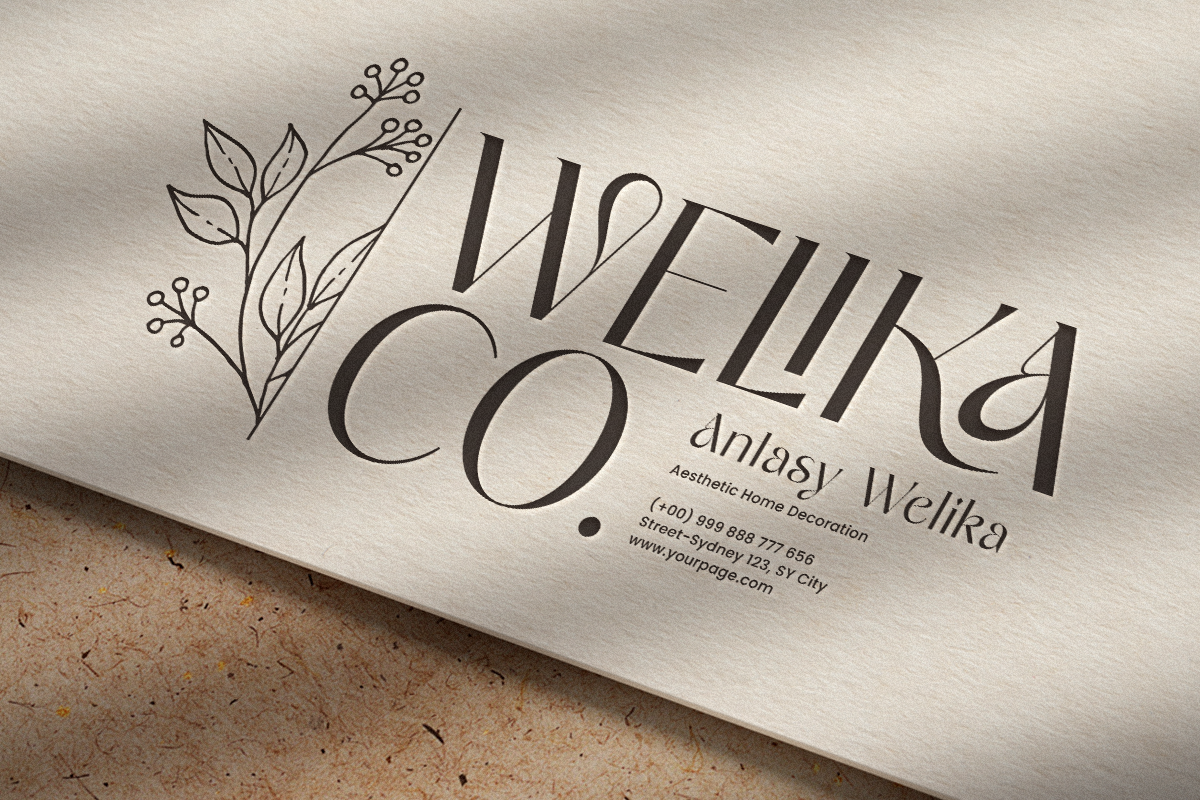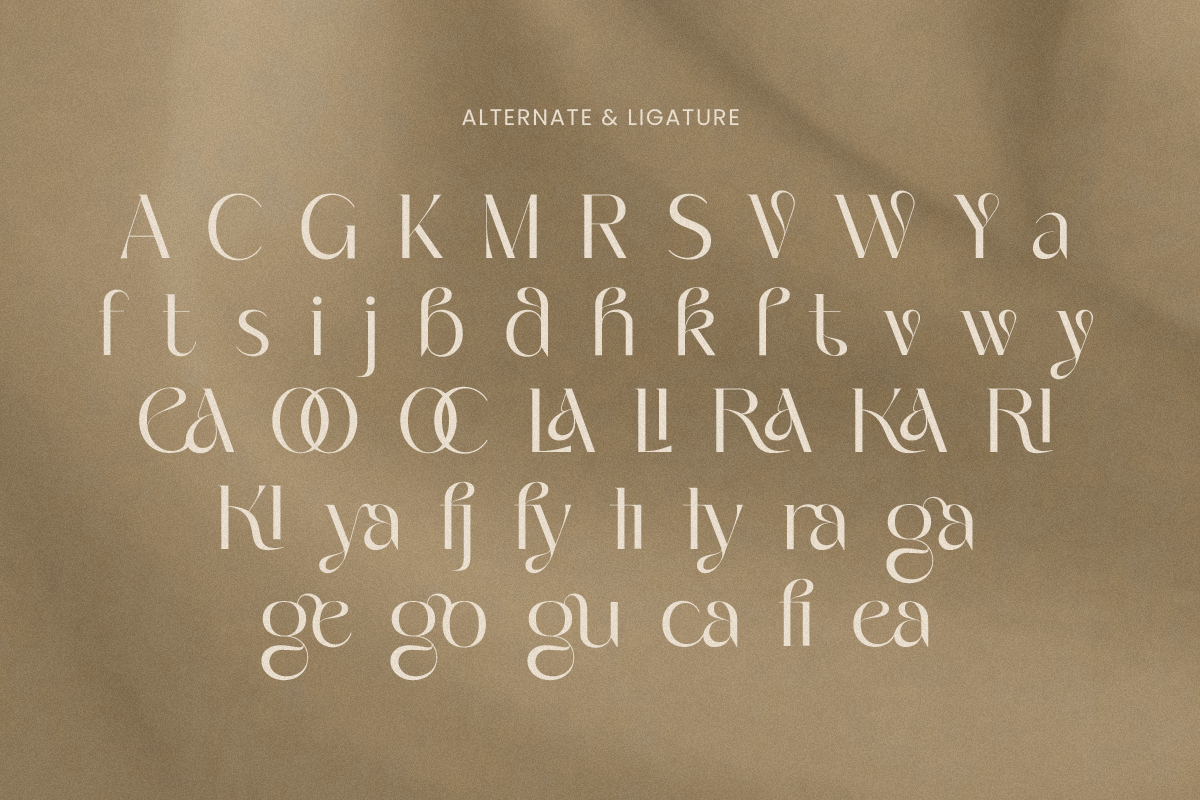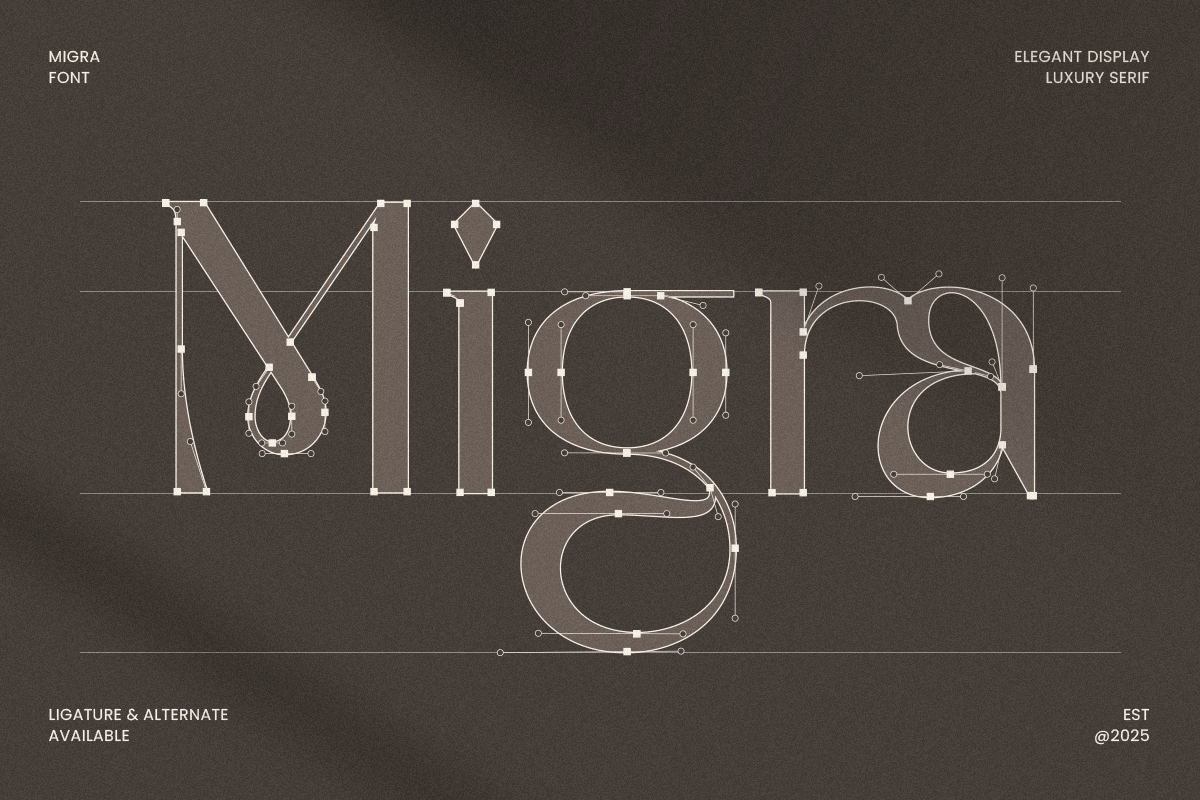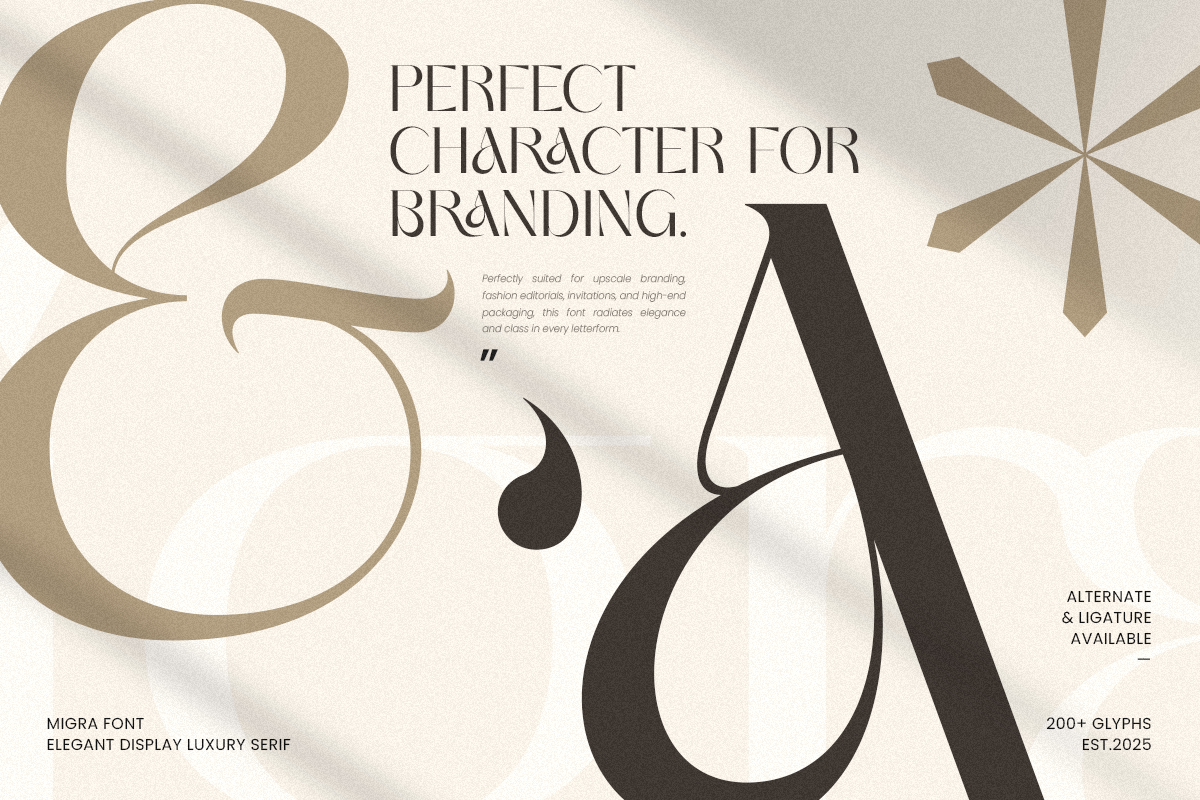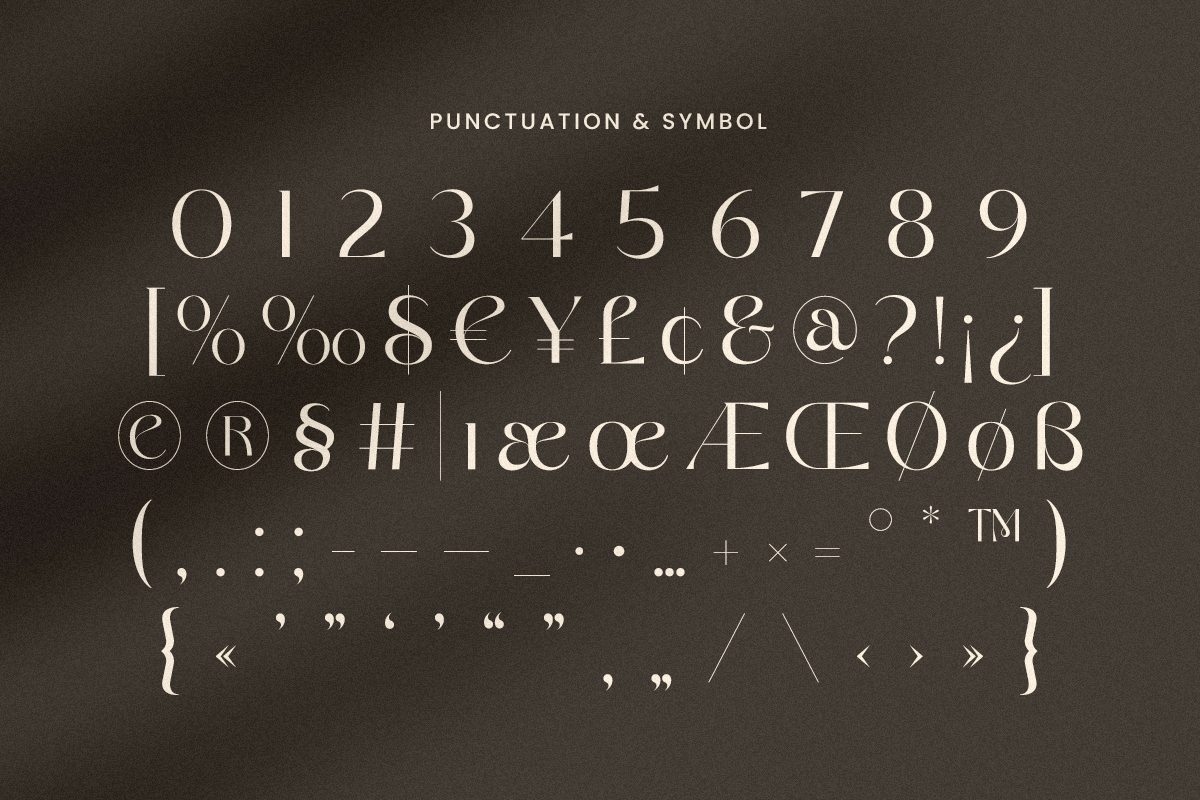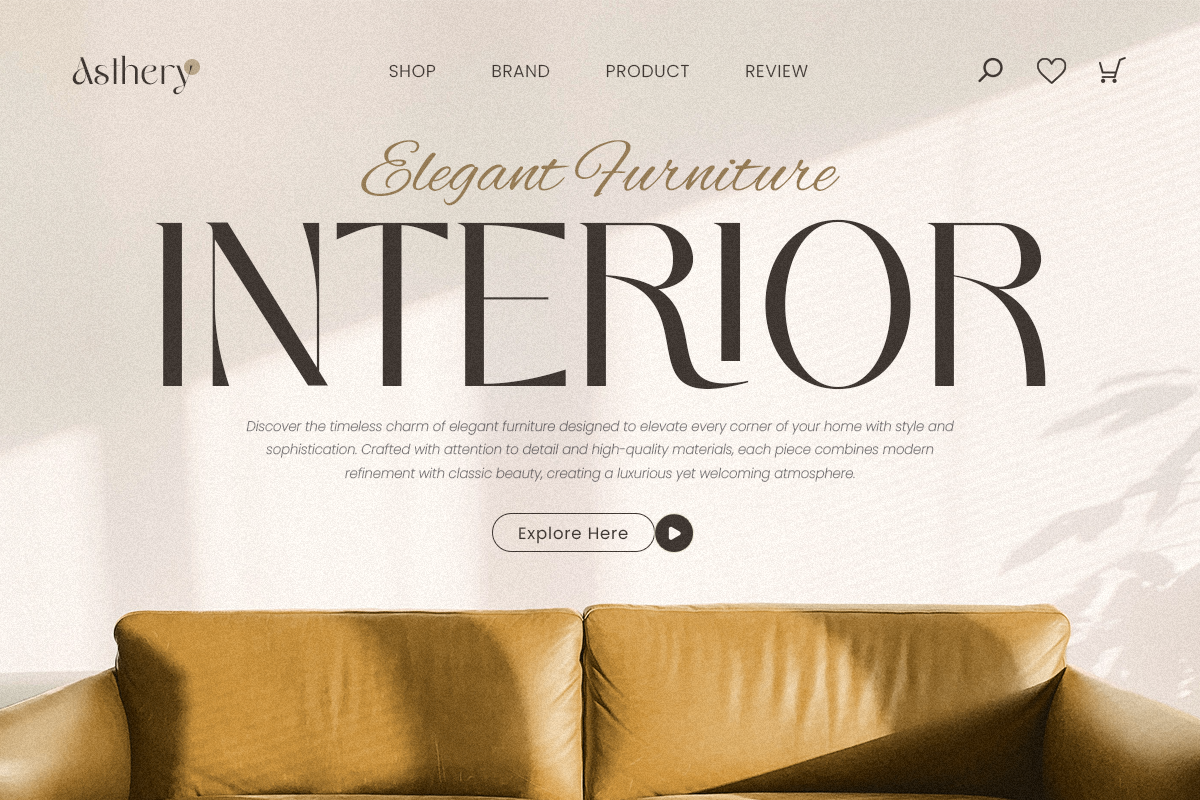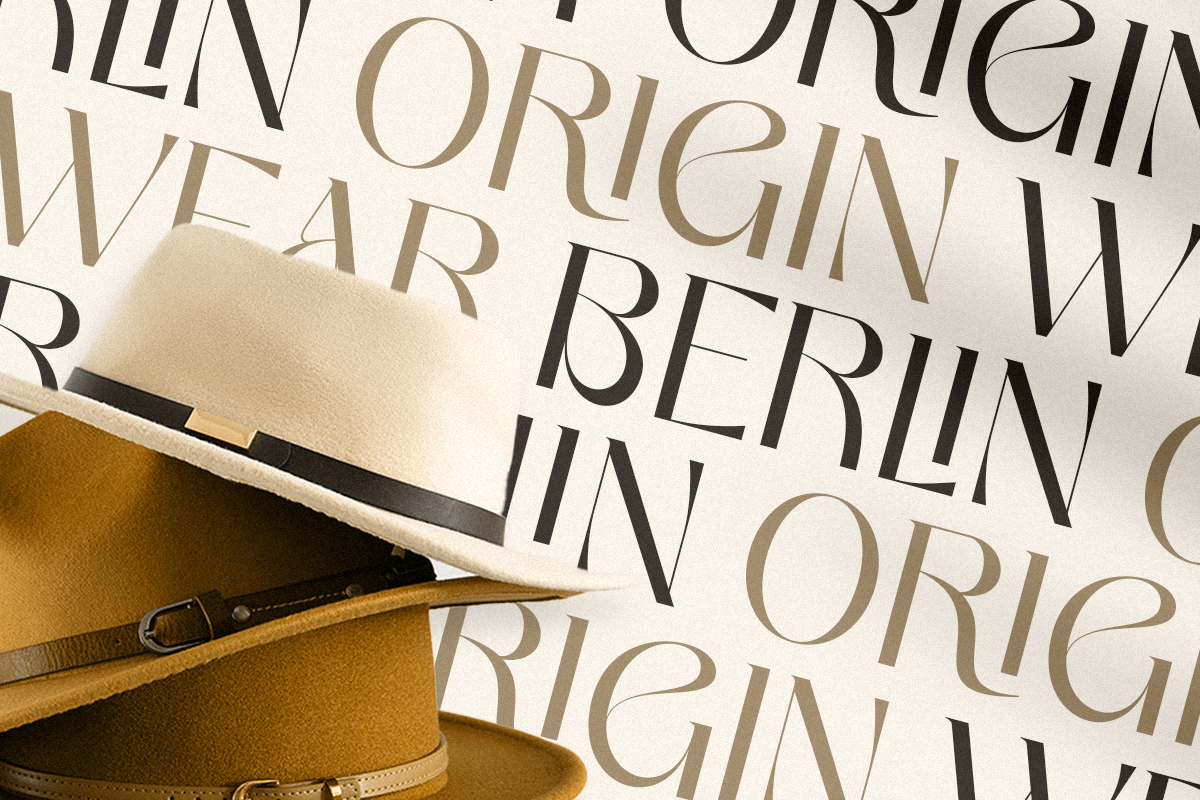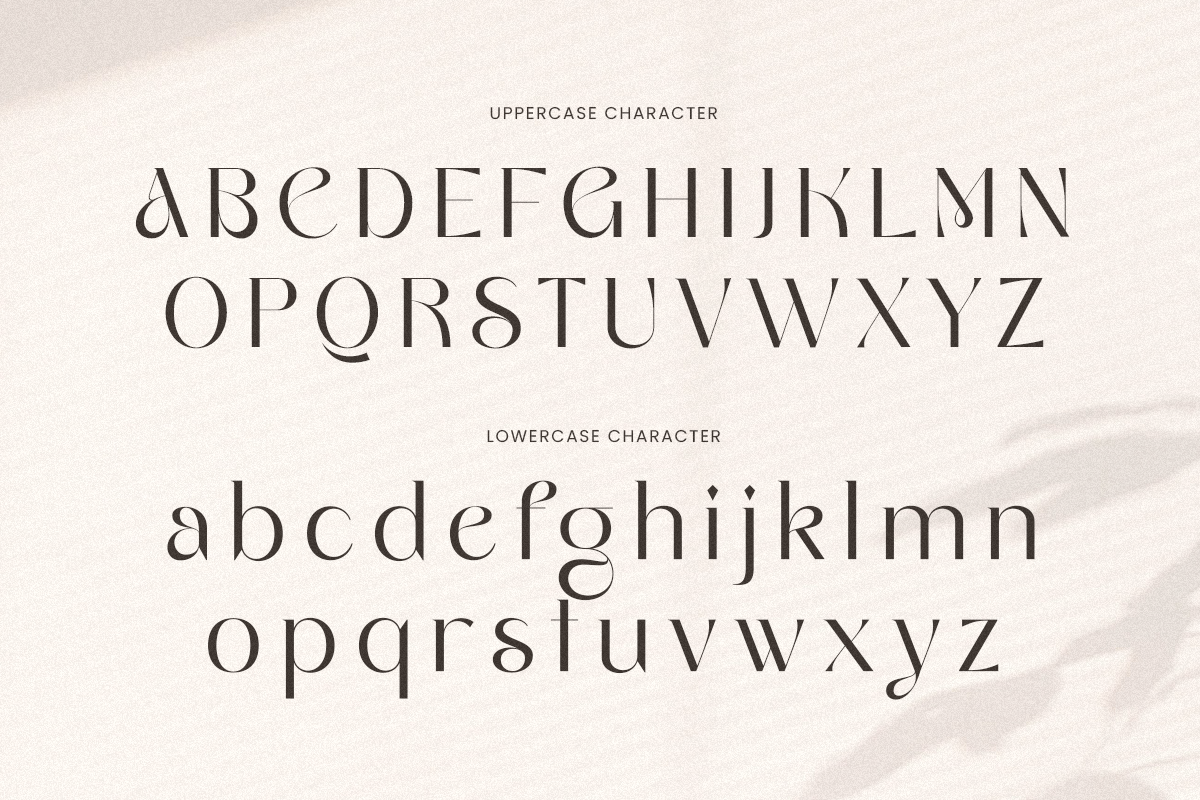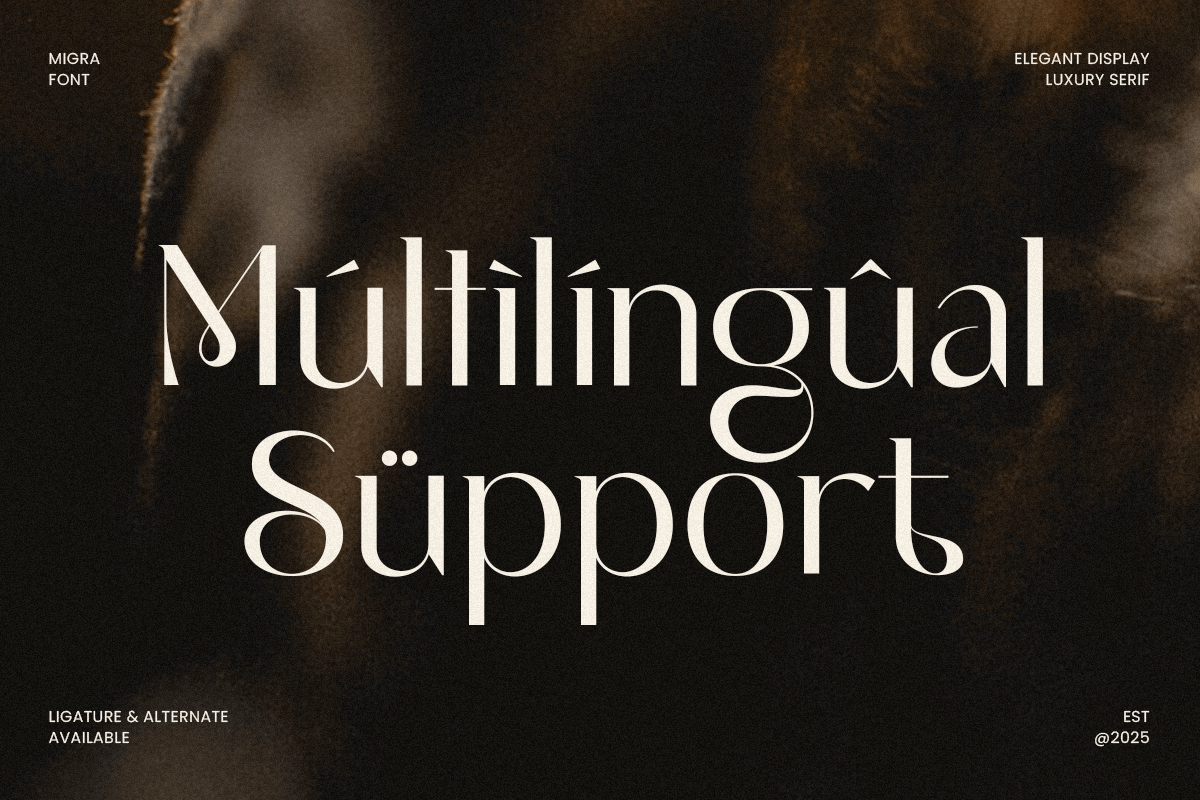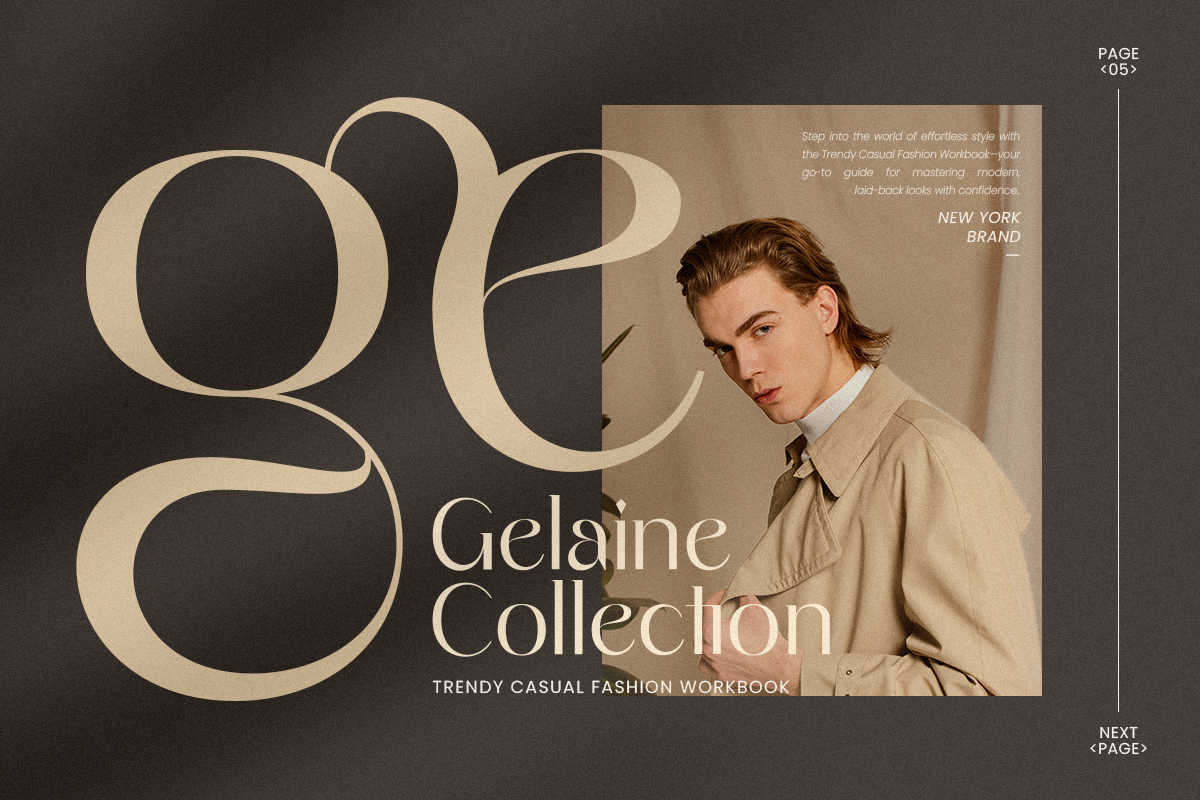
Migra - Elegant Display Luxury Font
Migra is an elegant display luxury sans serif font that brings a refined, high-end aesthetic to your design projects. Perfect for upscale branding, luxury logos, and sophisticated editorial designs, Migra combines bold, graceful letterforms with a timeless sans serif structure that exudes elegance.
Whether you're creating a logo for a luxury brand, a premium product line, or designing elegant invitations, Migra ensures your brand radiates sophistication. Its unique, high-end appeal makes it ideal for projects that demand attention to detail and a polished, professional look.
Migra – Elegant Display Luxury Sans Serif Features
Elegant, classy sans serif letterforms with a luxury design
Perfect for logos, branding, editorial design, and high-end projects
Includes uppercase, lowercase, numerals, and punctuation
Timeless, chic design with modern versatility
OpenType features for advanced typographic styling
Multilingual support for Afrikaans, Albanian, Asu, Basque, Bemba, Bena, Breton, Chiga, Cornish, Dutch, English, Estonian, Filipino, Finnish, Friulian, Galician, German, Gusii, Indonesian, Irish, Italian, Kabuverdianu, Kalenjin, Kinyarwanda, Luo, Luxembourgish, Luyia, Machame, Makhuwa-Meetto, Makonde, Malagasy, Manx, Morisyen, North Ndebele, Nyankole, Oromo, Portuguese, Quechua, Romansh, Rombo, Rundi, Rwa, Samburu, Sango, Sangu, Scottish Gaelic, Sena, Shambala, Shona, Soga, Somali, Spanish, Swahili, Swedish, Swiss, and more.
Create a sophisticated brand identity with Migra – the perfect font for elegant, luxury branding and design. 💎✨